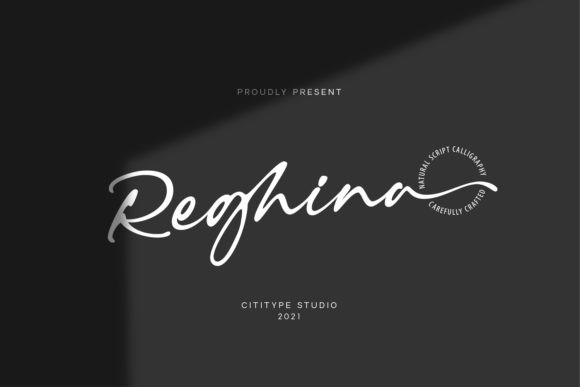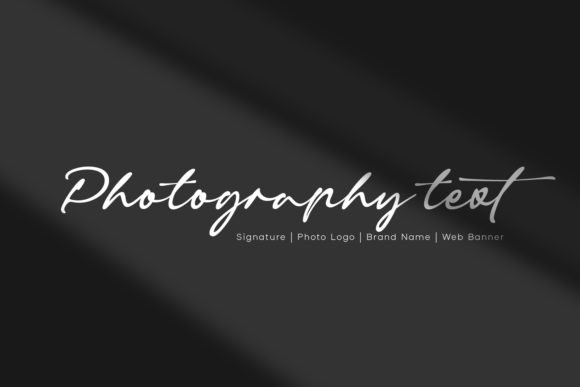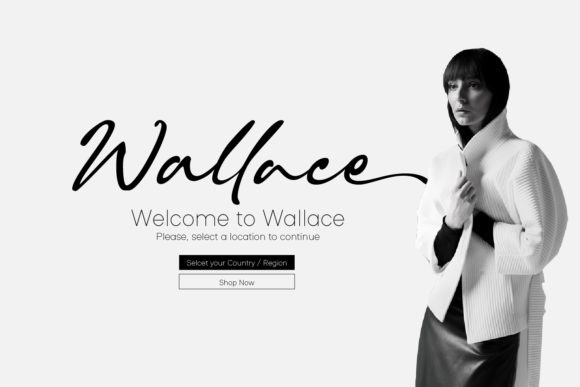
Reghina Font
Reghina is an elegant and stylish handwritten font. Fall in love with its incredibly versatile style and use it to create gorgeous wedding invitations, beautiful stationary art, eye-catching social media posts, and much more!